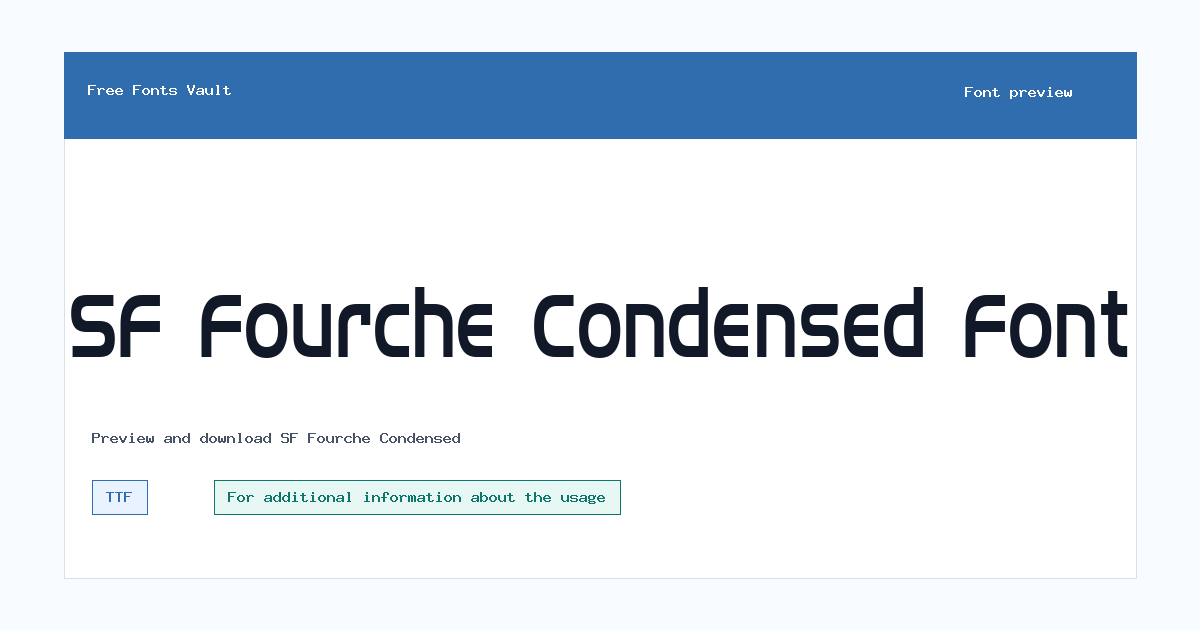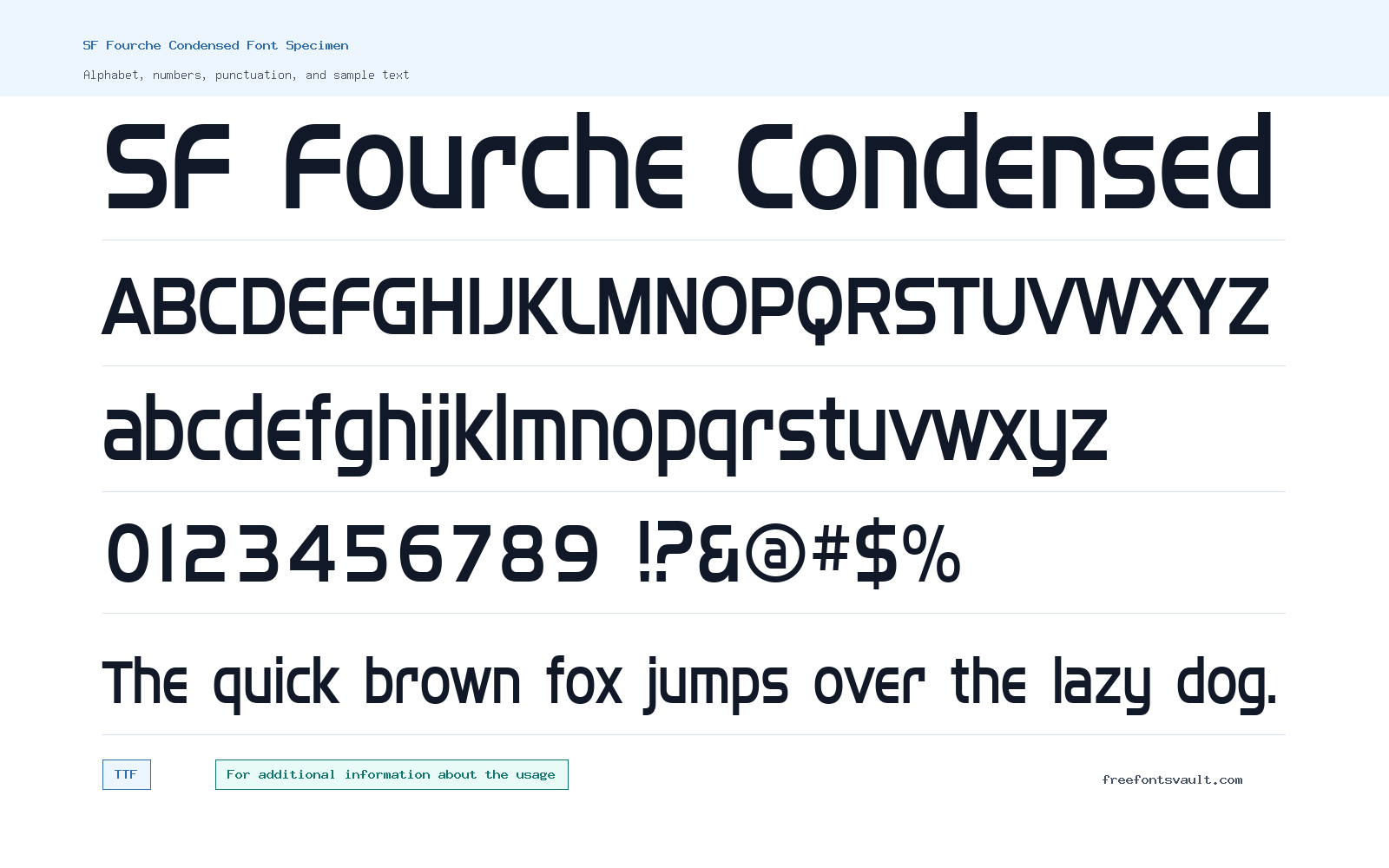
SF Fourche Condensed
- Designer Derek Vogelpohl
- Foundry ShyFoundry
SF Fourche Condensed font.
SF Fourche Condensed is a narrow-style font family from Derek Vogelpohl of ShyFoundry. Its condensed shape makes it a practical choice when you need text to feel compact without taking up too much horizontal space.
About SF Fourche Condensed
SF Fourche Condensed comes as a regular-weight TrueType font. The family name points to a condensed design, so it is best tested in short lines, labels, headings, and display text where a tighter width is useful. Use the preview tool to check how your exact wording looks, especially with uppercase letters, numbers, and punctuation.
Because only one regular TTF variant is listed, this font is better suited to simple styling than complex typographic systems. If you need bold, italic, or multiple weights, pair it with a separate supporting font rather than forcing browser effects. For longer paragraphs, test readability carefully, since condensed fonts can feel tight when used in dense body copy.
SF Fourche Condensed is best handled as a narrow display option. Try it for tall poster titles, compact labels, retro-inspired graphics, badges, and interface mockups where width is limited. Condensed fonts need careful spacing, especially in uppercase words, so increase tracking slightly if letters feel crowded. Because the license may need project-specific checking, confirm permission before using it in paid branding, packaged goods, templates, or client files.
- Condensed family style suited to space-saving display text
- Designed by Derek Vogelpohl and associated with ShyFoundry
- Headings and compact title treatments
- Posters, badges, labels, and short display text
- Navigation text or UI labels where width is limited
- Pairing with a wider, simpler body font for contrast
SF Fourche Condensed is credited to Derek Vogelpohl, with ShyFoundry listed as the foundry.
Try the font first with the exact words you plan to use. Condensed fonts can work well in short display settings, but they may become harder to read in long paragraphs or very small sizes. Since only a regular TTF file is listed, avoid relying on artificial bold or italic styling for final designs.
What is SF Fourche Condensed best used for?
It is best tested for short text such as headings, labels, badges, posters, and compact title settings where a condensed look is useful.
Who designed SF Fourche Condensed?
The font is credited to Derek Vogelpohl, with ShyFoundry listed as the foundry.